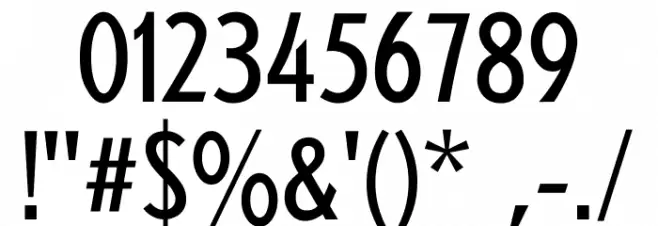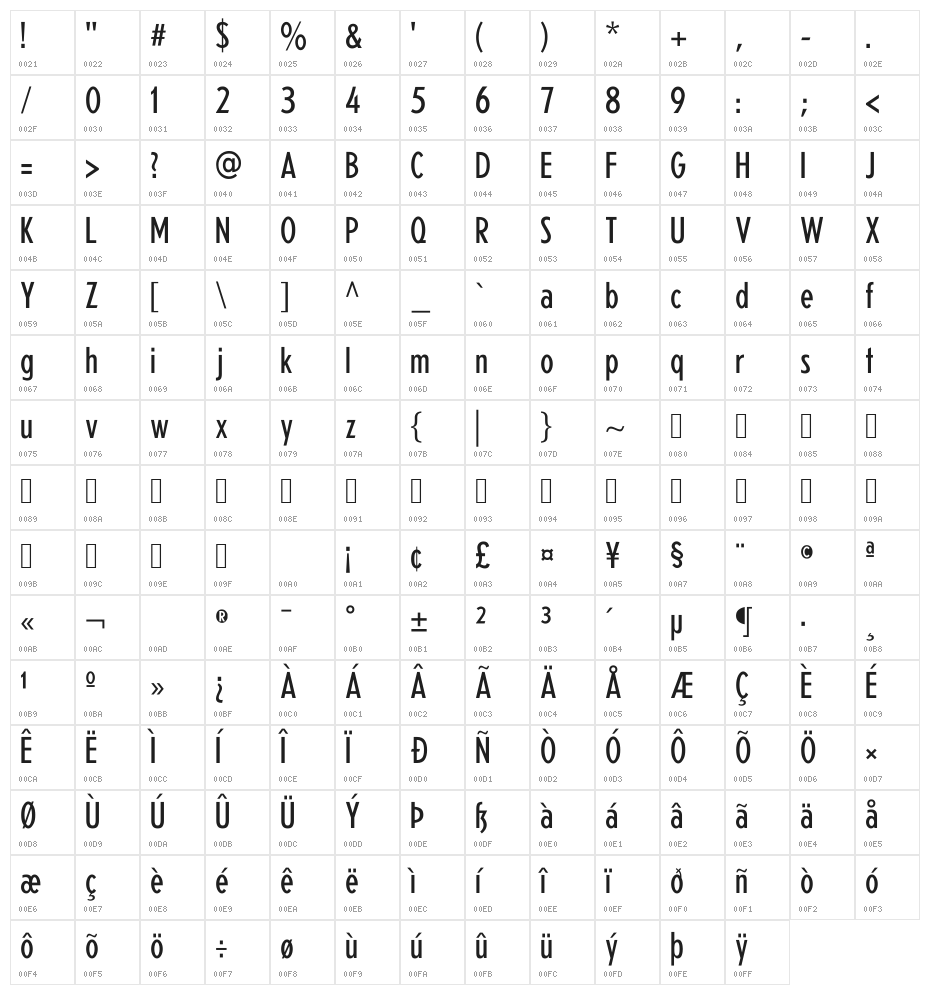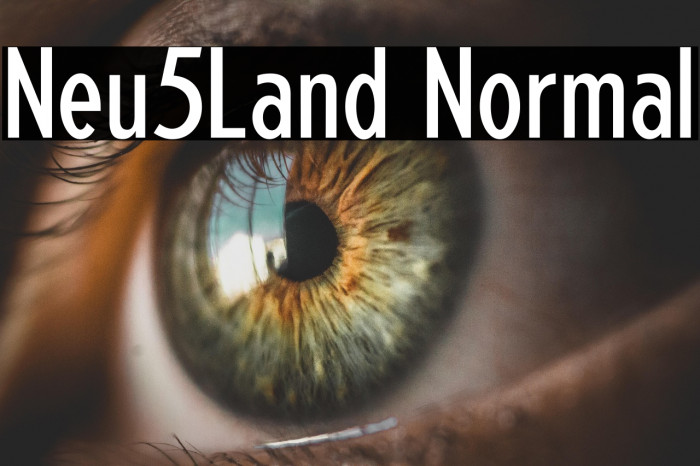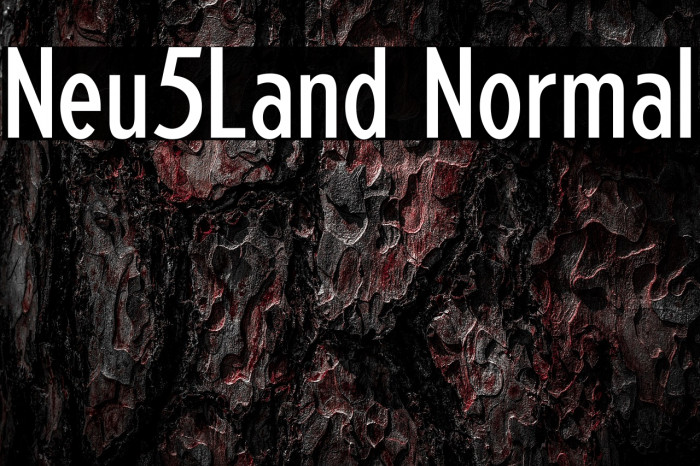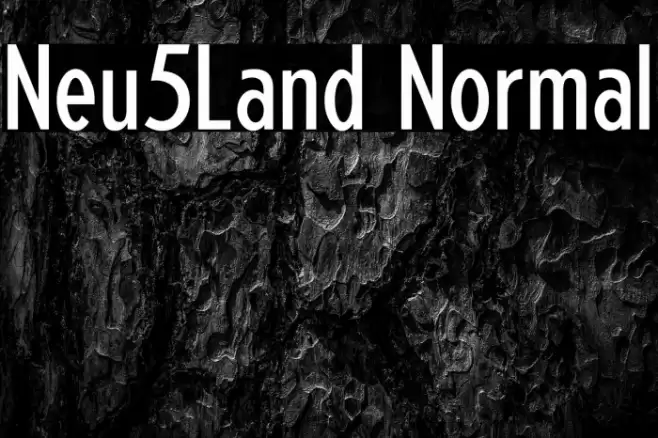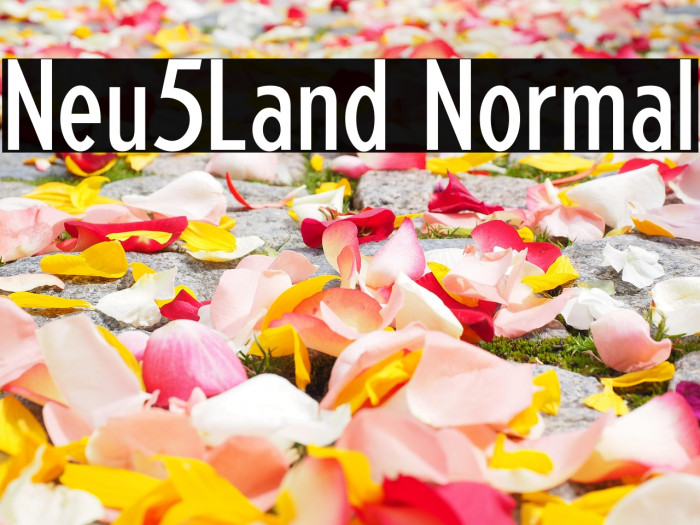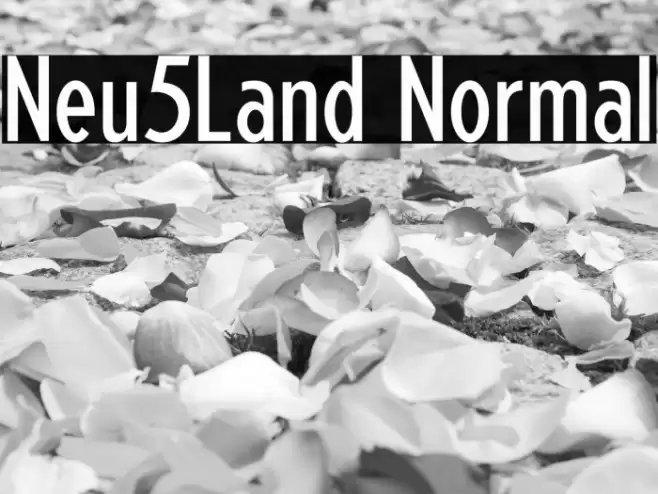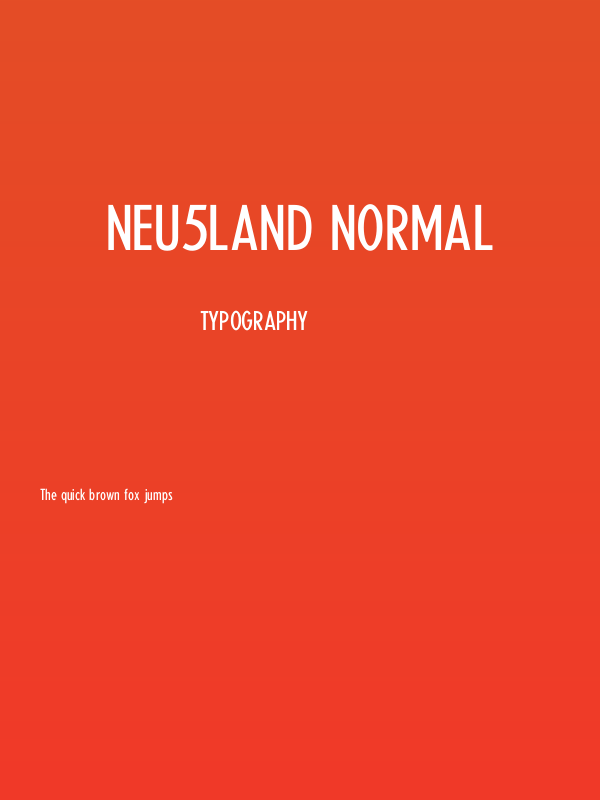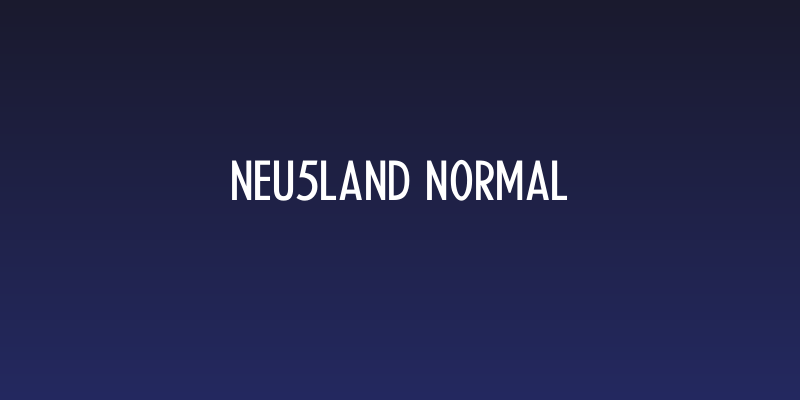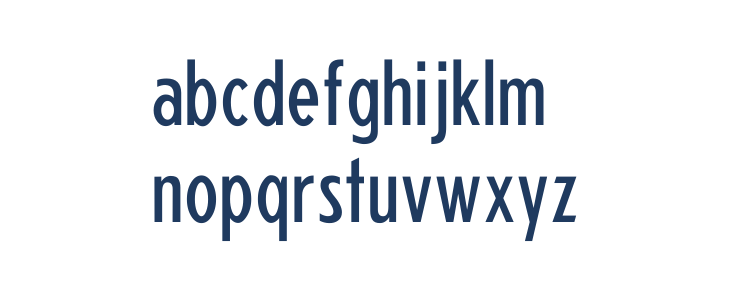
Neu5Land Normal Font
Neu5Land Normal Description
This typeface features a clean and modern sans-serif design with a focus on readability and simplicity. The characters are well-proportioned, with a consistent stroke width that provides a balanced and harmonious appearance. The uppercase letters are bold and assertive, while the lowercase letters maintain a friendly and approachable feel. The numerals are clear and easily distinguishable, making them suitable for various applications. The special characters are designed with precision, ensuring they integrate seamlessly with the rest of the typeface. Overall, this font is versatile and can be used in a wide range of design projects.